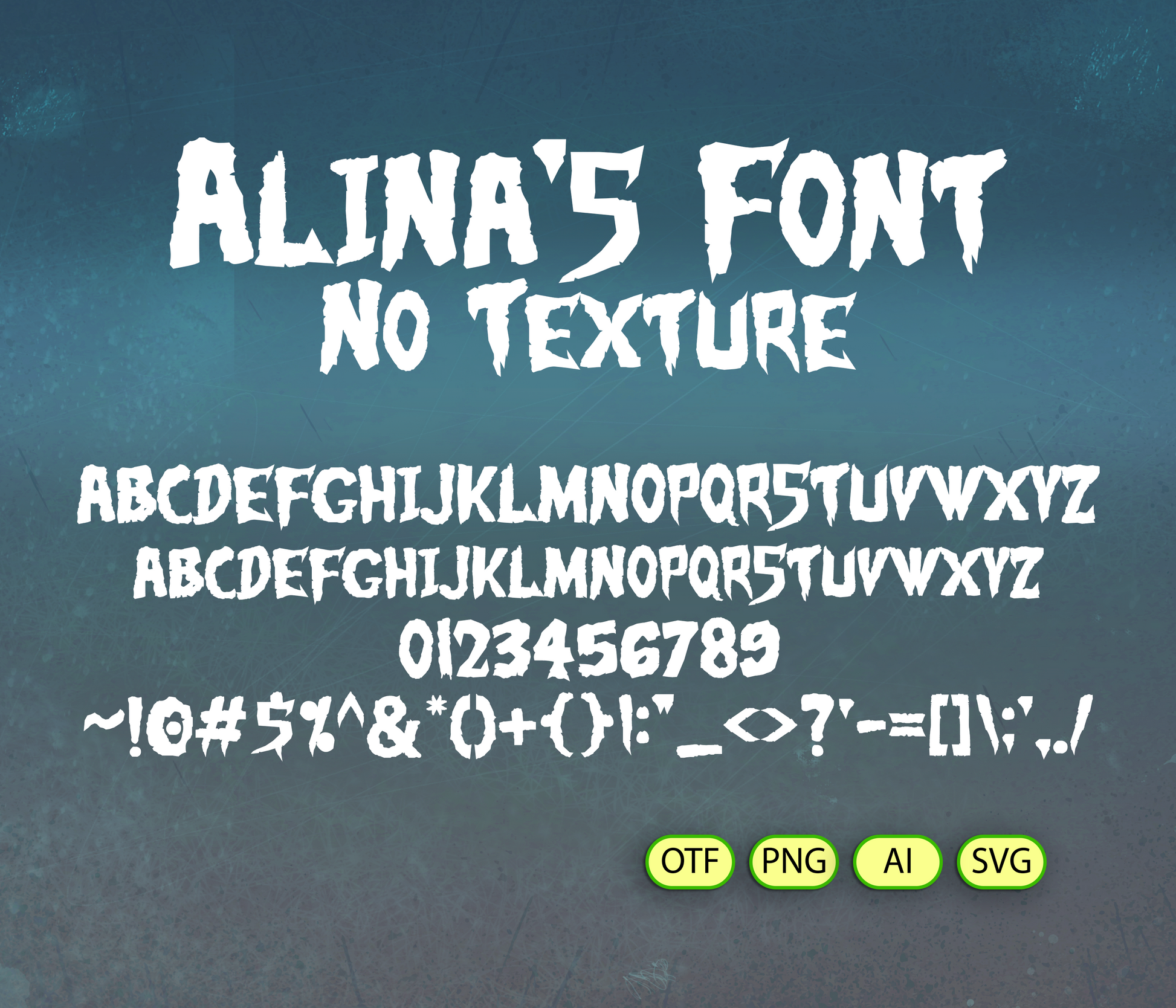
Sewer Fighting Heroes Font
Step into the world of pizza-loving martial artists with our Sewer Heroes font, capturing the essence of teenage warrior reptiles. Perfect for fans, comic creators, event organizers, and designers, this font brings the dynamic, action-packed spirit of these beloved green fighters to your projects. Create event invitations, themed merchandise, or digital content with the high-energy vibe of these underground heroes.
Our Sewer Heroes font features bold, energetic lines and playful characters reflecting the dynamic nature of these shell-backed warriors. Ideal for:
1. Event Promotions: Create striking posters and promotional materials for comic conventions, martial arts shows, or reptile-themed gatherings that capture the essence of ninja action.
2. Merchandise Design: Perfect for t-shirts, skateboards, and youth apparel that needs that extra touch of underground warrior spirit.
3. Digital Content Creation: Enhance your websites, social media posts, and digital art with the radical energy of these teenage heroes.
4. Themed Projects: Ideal for comic-inspired designs, children's events, or any project that needs to convey the essence of martial arts adventure.
5. Custom Party Materials: Perfect for birthday parties, fan gatherings, or any project requiring that blend of action and humor in a half-shell.
Our font pays tribute to the legendary teen fighters, empowering your designs with its energetic and playful spirit. Whether crafting promotional materials, designing merchandise, or adding a dynamic touch to personal projects, this font communicates the bold essence of these heroes. Ready to inject warrior action into your creations? This font is your key to exciting, impactful design.